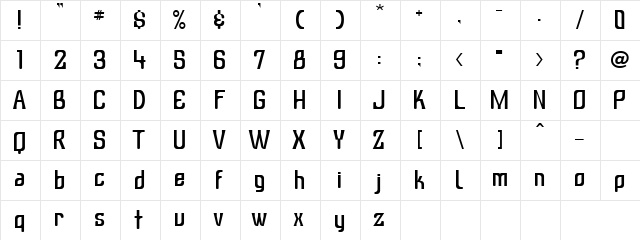
Font Phoebia Regular
Design Context for Font Phoebia Typeface
Font Phoebia is a composed and adaptable typeface that performs quietly and consistently across a wide range of design contexts.